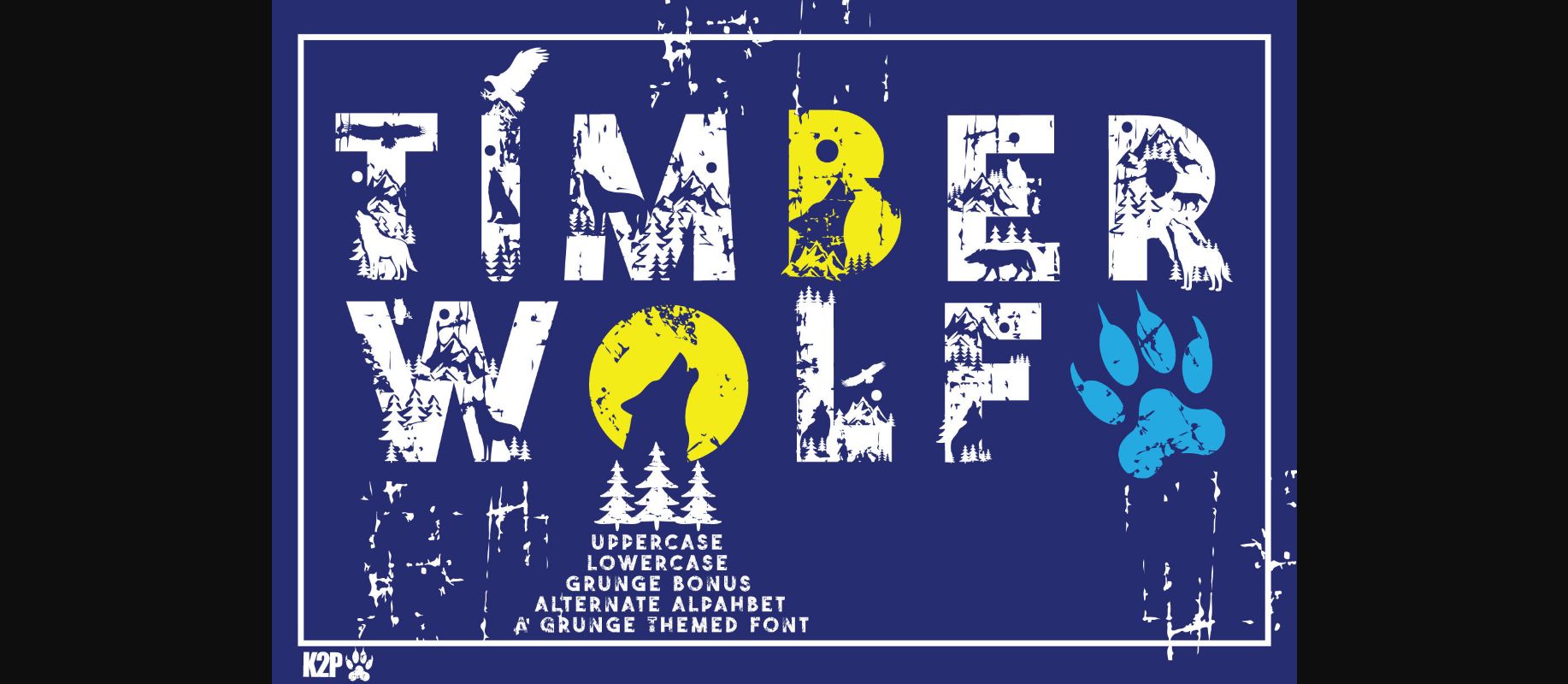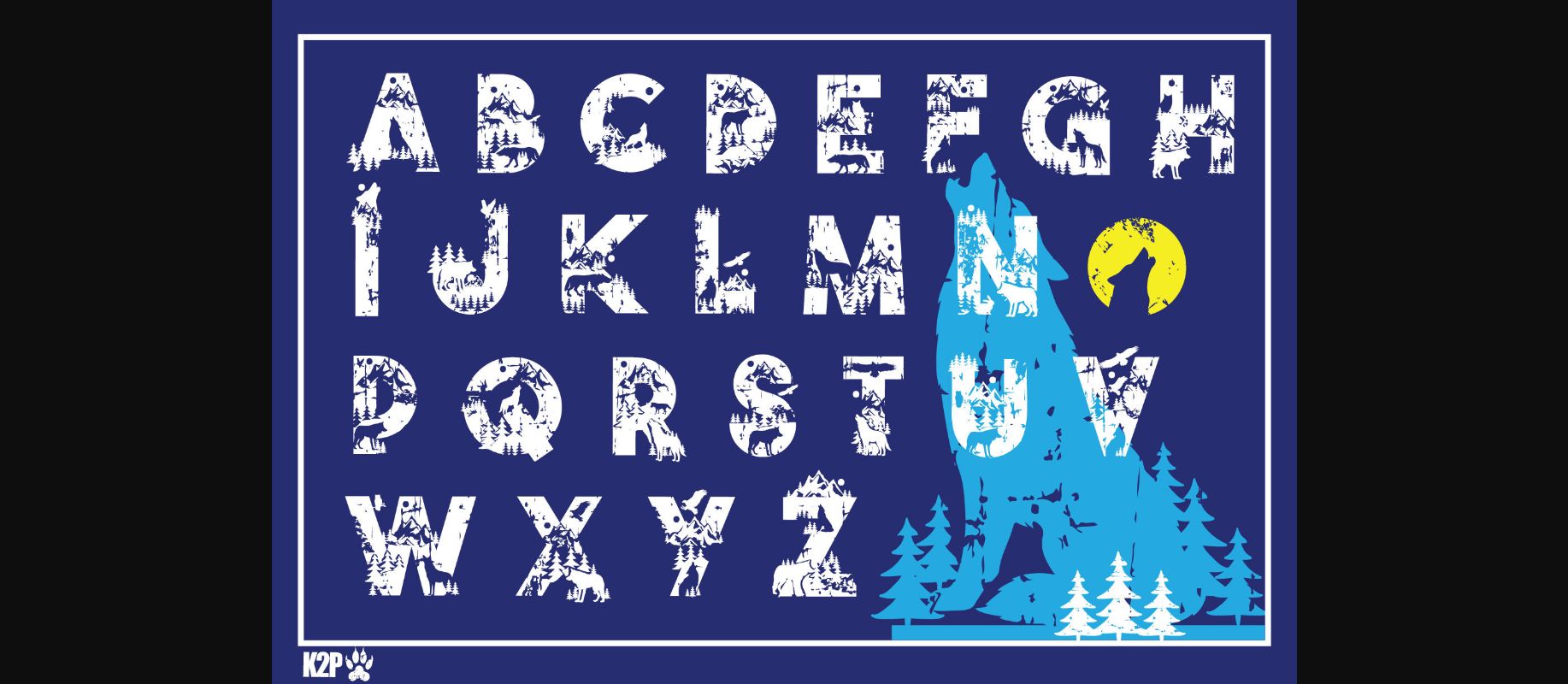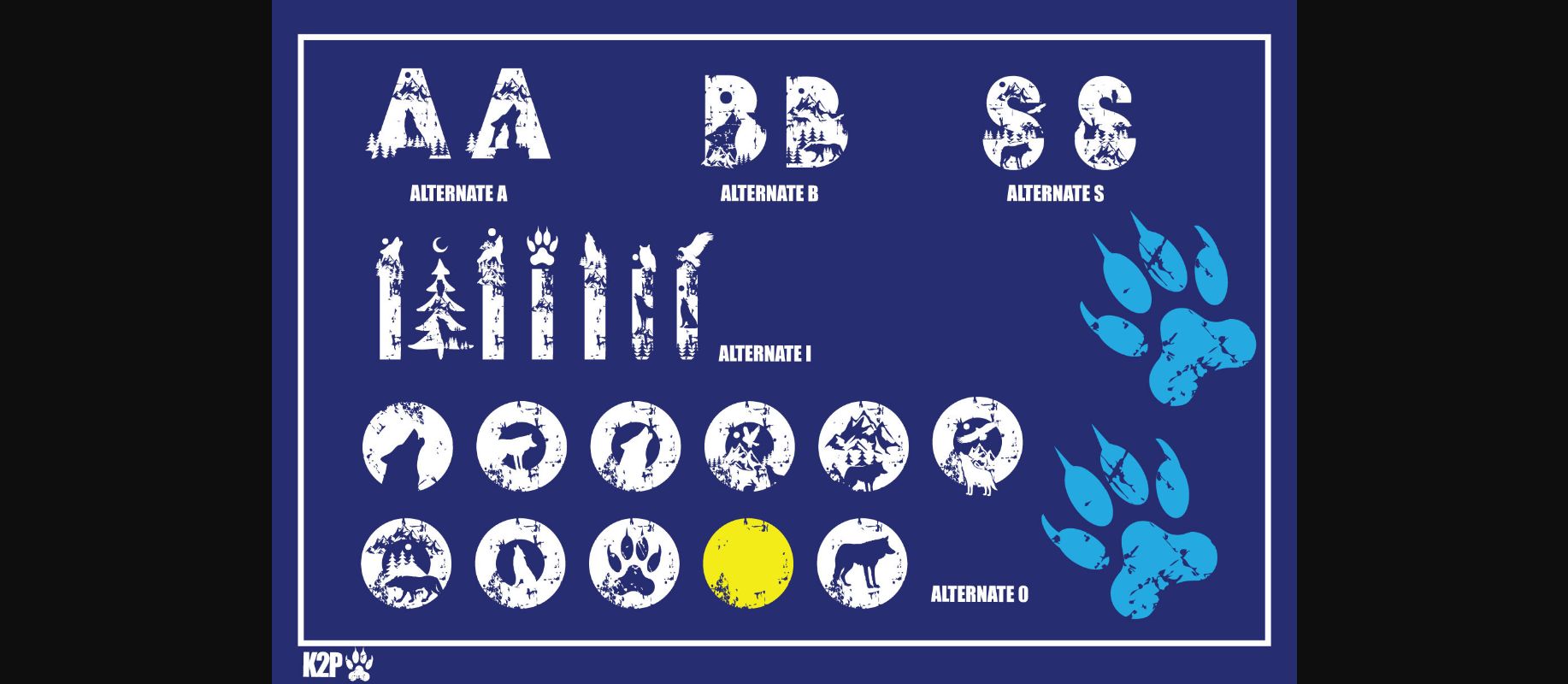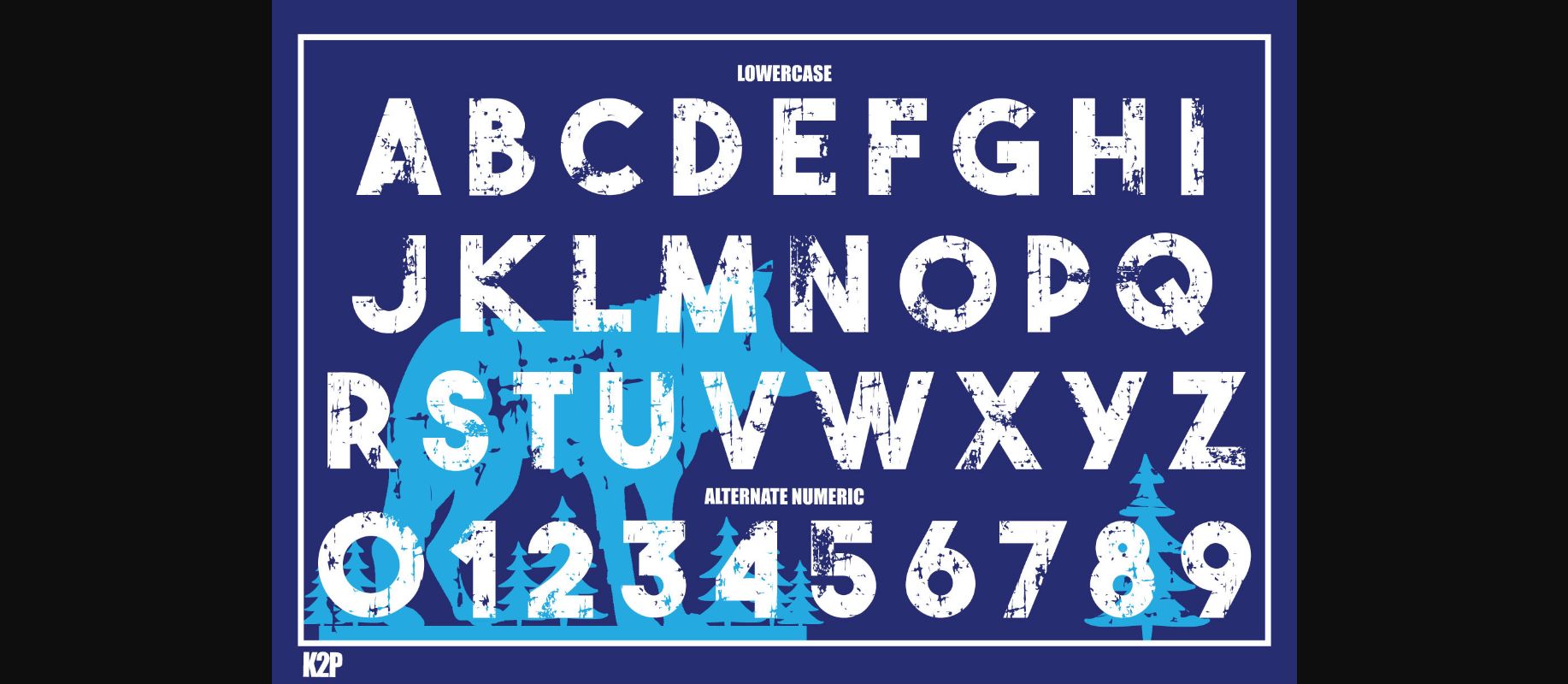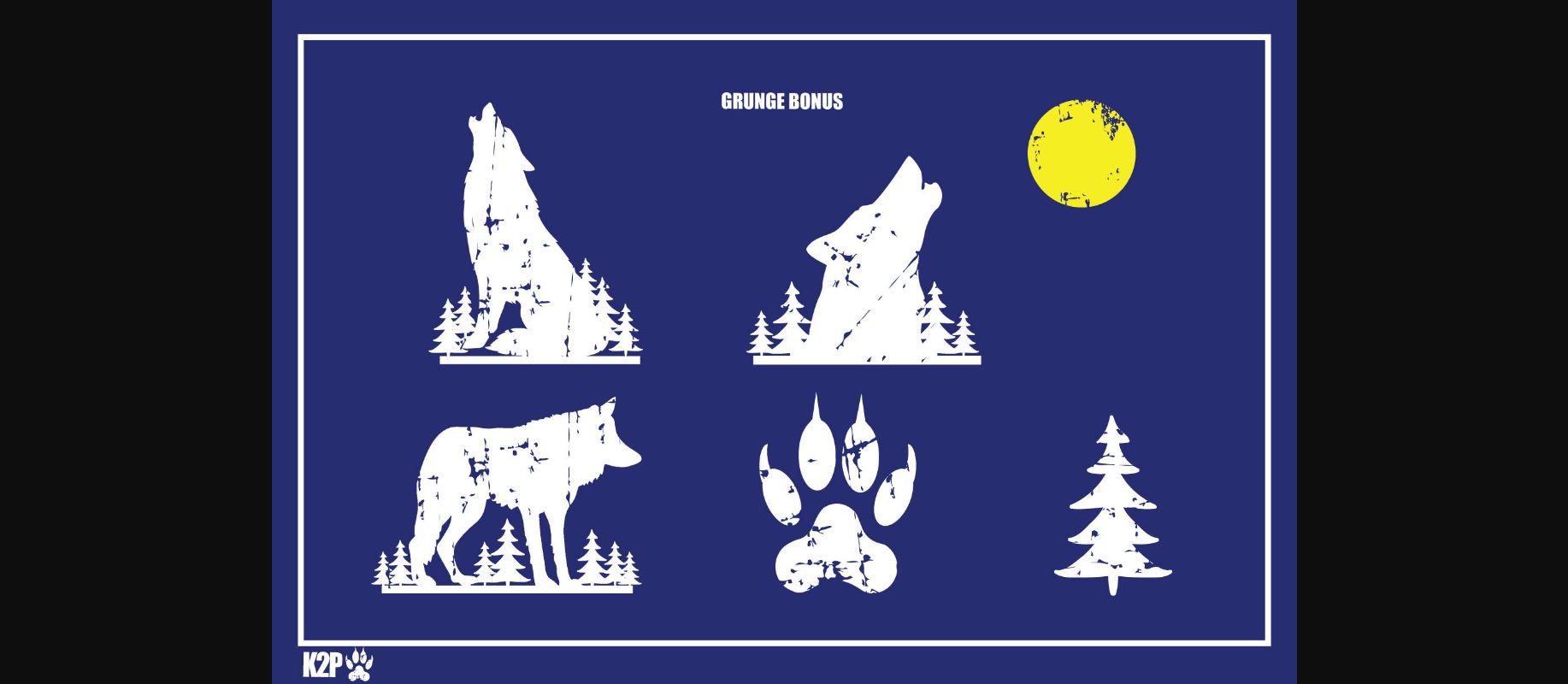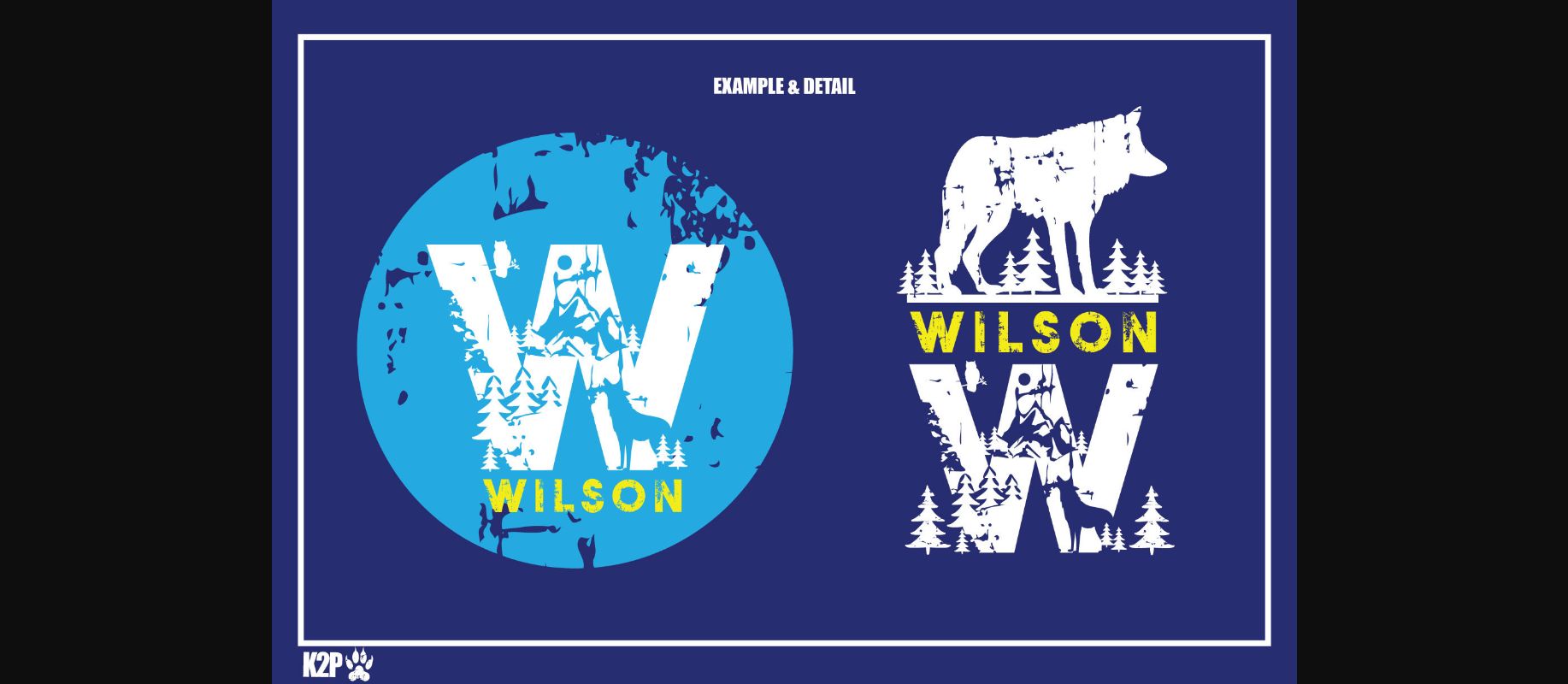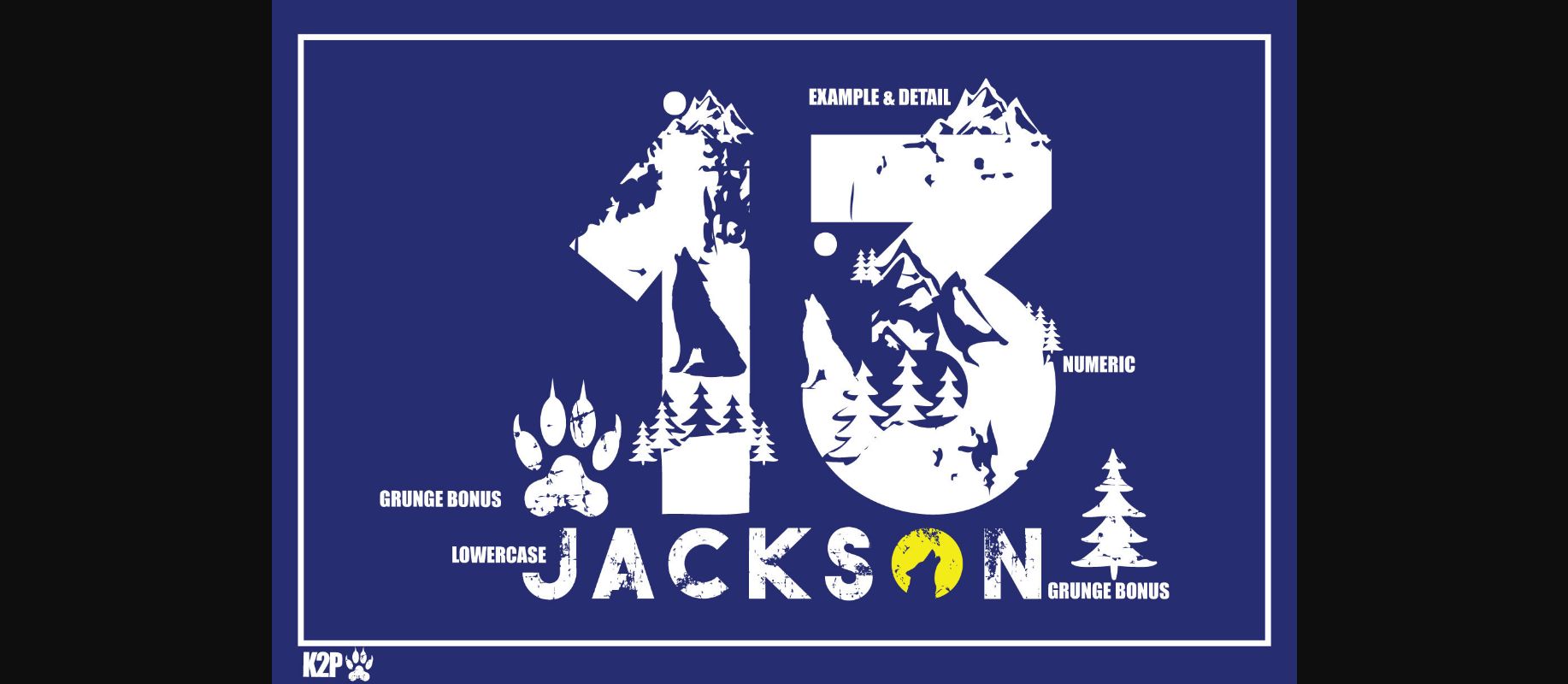
Timber Wolf Font
About Timber Wolf Font
Timber Wolf is a fun, original, and assertive decorative font. It is perfect for various design ideas related to fishing, camping, traveling, and more. This font is PUA encoded which means you can access all of the glyphs and swashes with ease.